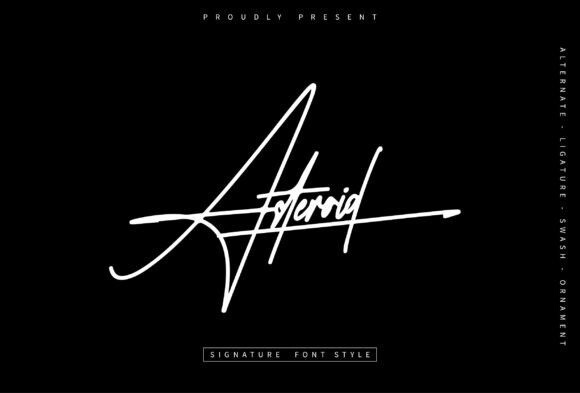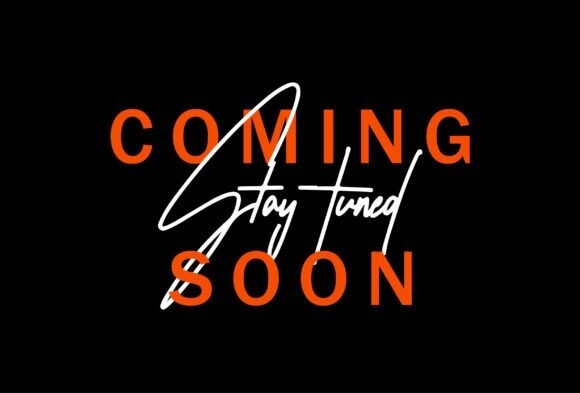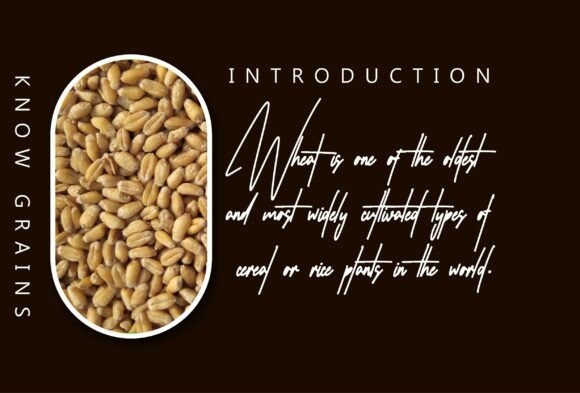
Asteroid Font
Asteroid is an elegant and modern script font. Its smooth and fluid lines create a sense of motion and grace, while the carefully crafted curves and flourishes lend it a contemporary feel. Perfect for invitations, branding, and all your creative endeavors, this font is sure to impress.